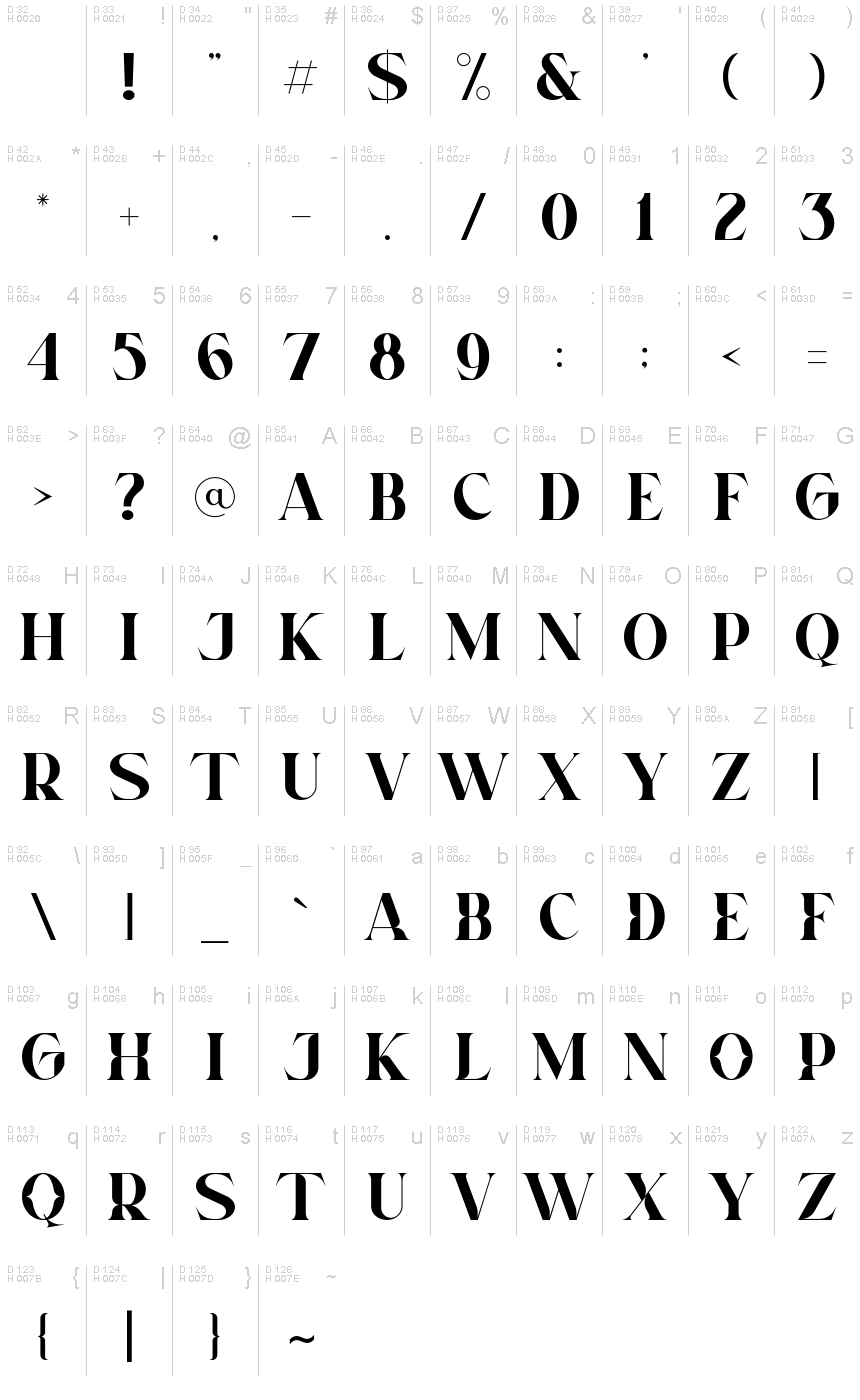
Norden
Norden, a captivating serif font designed by Heinzel Std, exudes a bold and refined elegance. With its condensed width, the typeface boasts a striking visual presence, commanding attention with its dramatic vertical strokes and delicate serif accents. The harmonious balance between the weighty letterforms and the subtle curves creates a timeless aesthetic, evoking a sense of sophistication and confidence.
This versatile font lends itself seamlessly to a wide range of design applications, from editorial layouts and branding collateral to signage and packaging. Its condensed structure makes it an excellent choice for projects requiring a compact yet impactful typographic solution, while its serif characteristics imbue the design with a touch of traditional charm. Norden by Heinzel Std is a compelling typographic choice that can elevate the visual impact of any project.